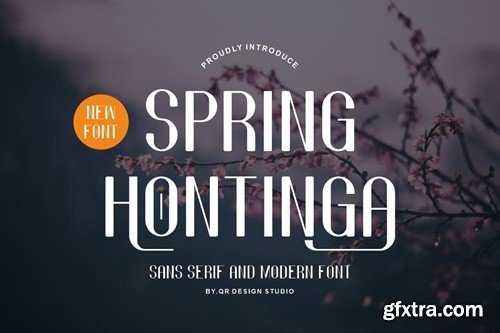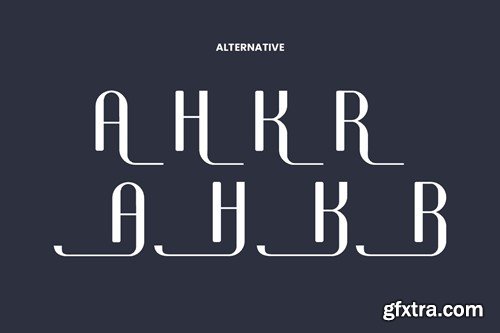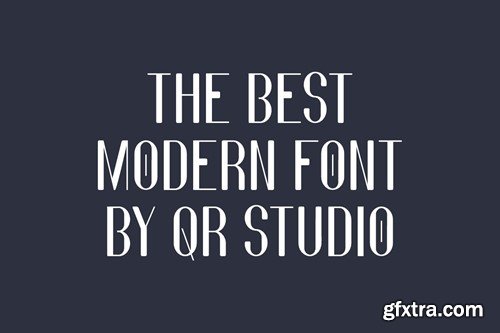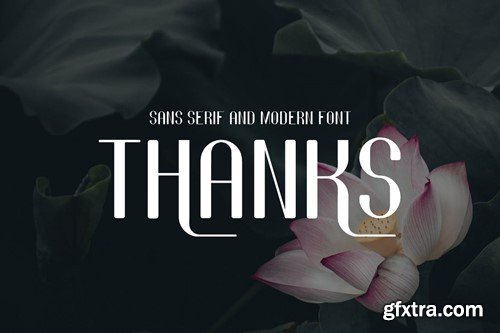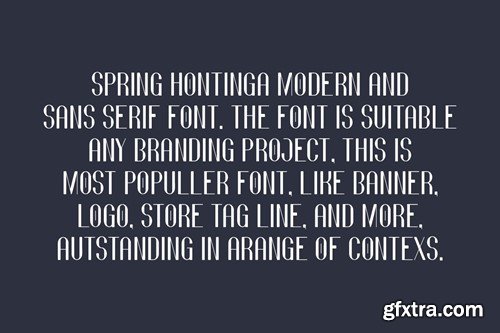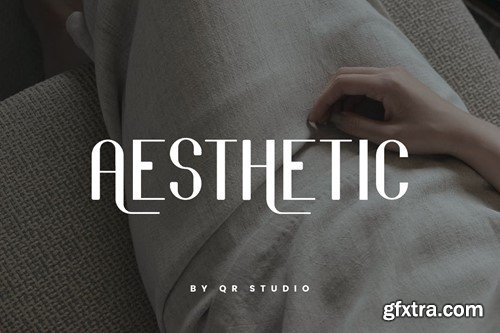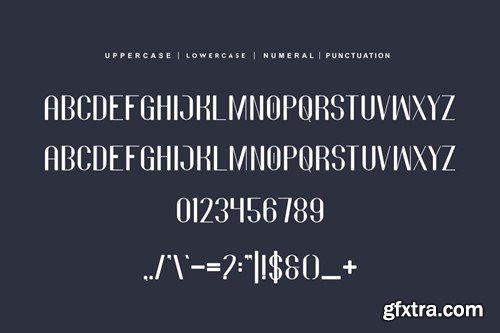
Spring Hontinga - Modern & Minimal Font RX73LQL
Spring Hontinga - Modern & Minimal Font
Spring Hontinga Font is a sans serif and authentic display font. The font is suitable for any branding project like poster, logo, sport, and many more. Outstanding in a wide range of contexts.